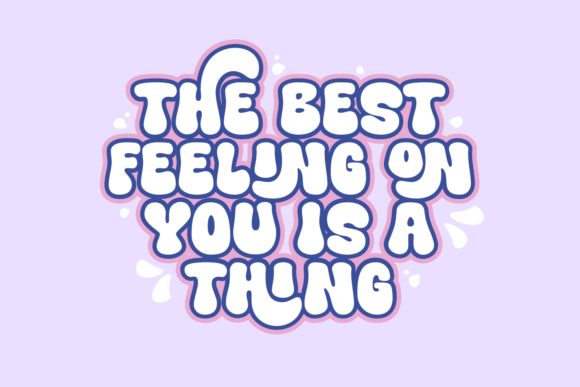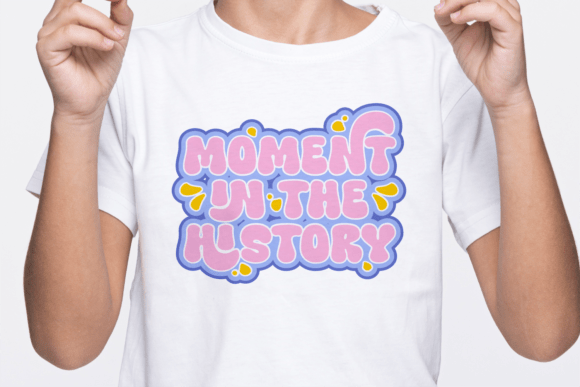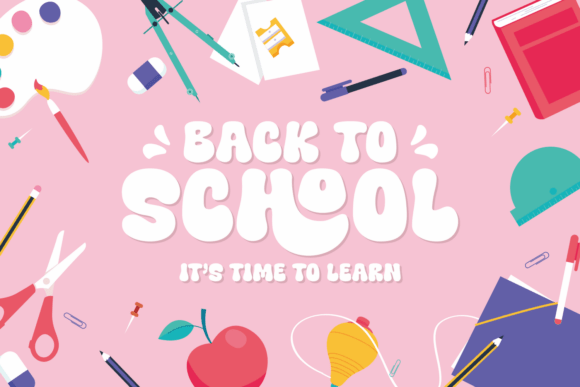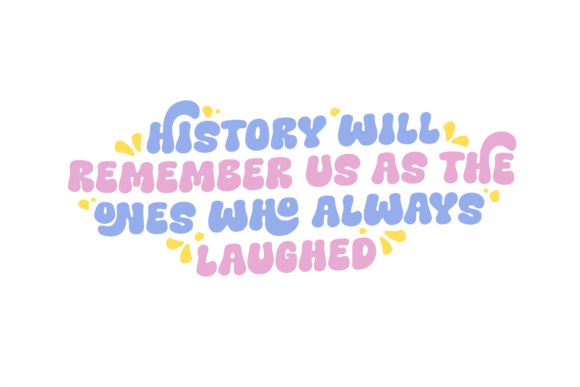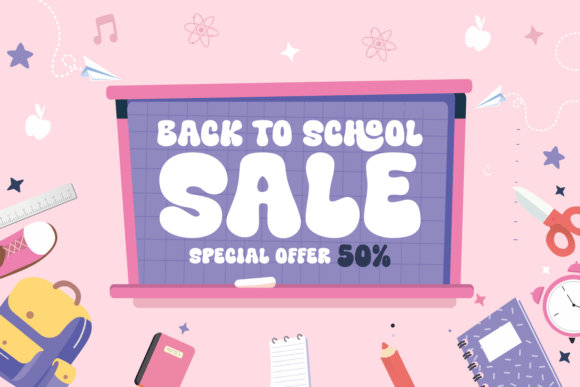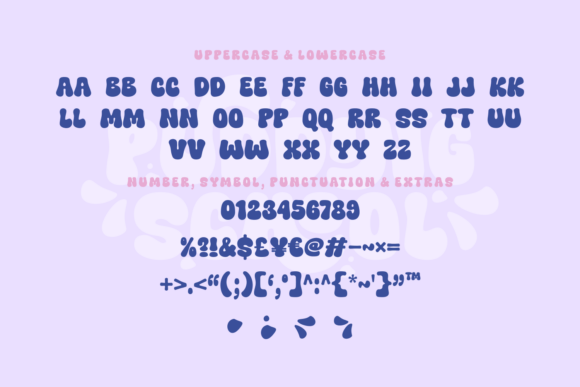
Introduction to Pudding School Font
Remember that moment when you stumbled upon the perfect font for your creative project, and suddenly everything came together? For designers, finding the right font can be a game-changer. It’s like discovering a hidden treasure that elevates your design from good to great. And today, we’re excited to introduce you to a font that’s sure to bring a smile to your face – the Pudding School Font.
This playful bubble font is a treasure trove of joy and youthful energy, making it perfect for kid-themed designs, school projects, posters, packaging, and fun branding. With its soft, plump letters and quirky curves, the Pudding School Font is a high-quality design resource that’s sure to grab attention and spark creativity. Whether you’re working on a free download or a paid project, this font is a must-have for any designer looking to add a splash of happiness to their work.
Key Features of Pudding School Font
- Unique, hand-drawn style with transparent background for added flexibility
- Part of the Pudding School Font collection, offering a cohesive design language
Honest Review: Pudding School Font
I recently had the chance to work with the Pudding School Font, and I must say it’s been a game-changer for my design projects. ✨ As a design resource, it’s incredibly versatile and has helped me add a touch of whimsy to my creative projects.
Here are some of the key things that work well:
- High-quality design and smooth lines
- May not be suitable for formal or professional projects due to its playful nature
- Some characters may be missing or not easily accessible
Overall, I’m thoroughly impressed with the Pudding School Font. It’s been a great addition to my design resource library, and I highly recommend it to anyone looking for a fun and creative font for their projects.
To get the most out of the Pudding School Font, try combining it with a transparent background to create a unique and eye-catching design. Experiment with different font sizes, colors, and styles to add depth and visual interest to your project.
The Pudding School Font is ideal for creative projects such as:
1. Social media graphics and posts.
2. Blog headers and titles.
3. Infographics and data visualizations.
4. Branding and logo design.